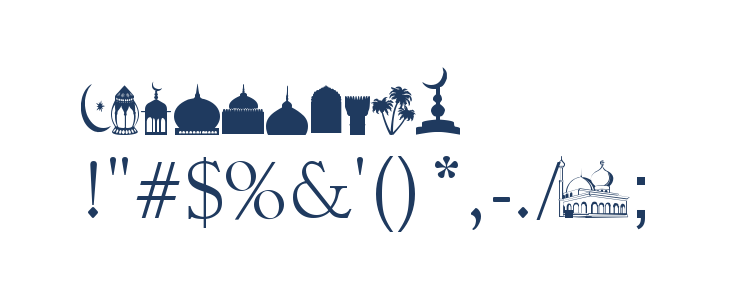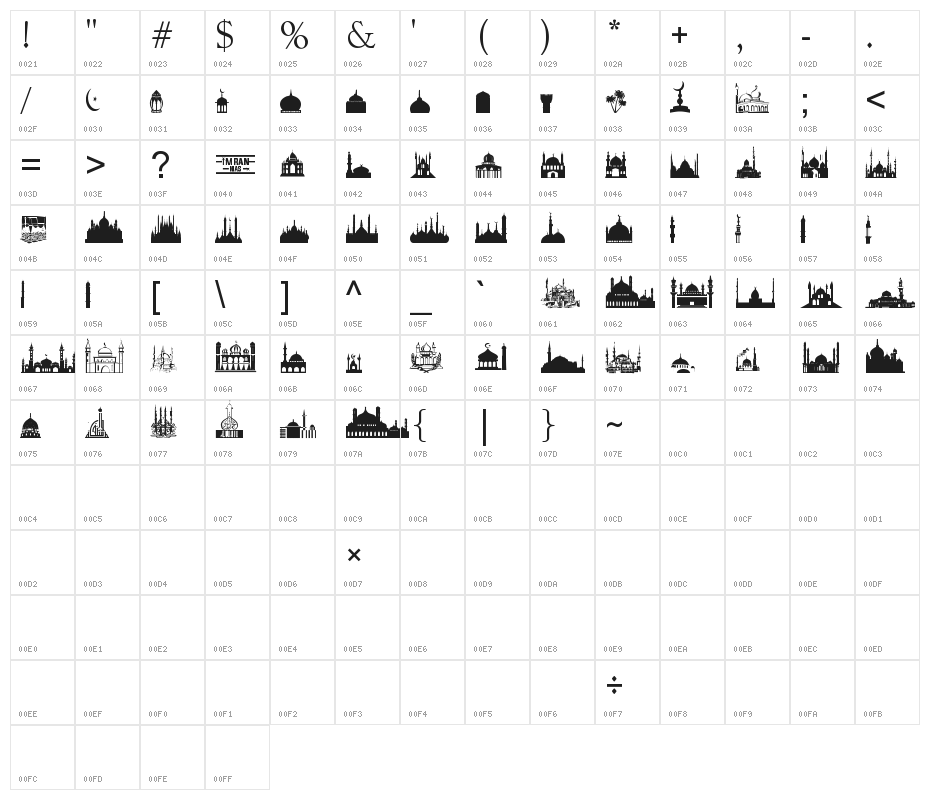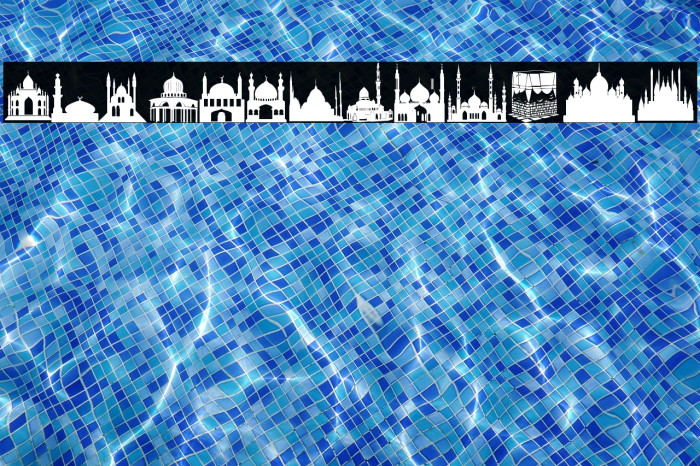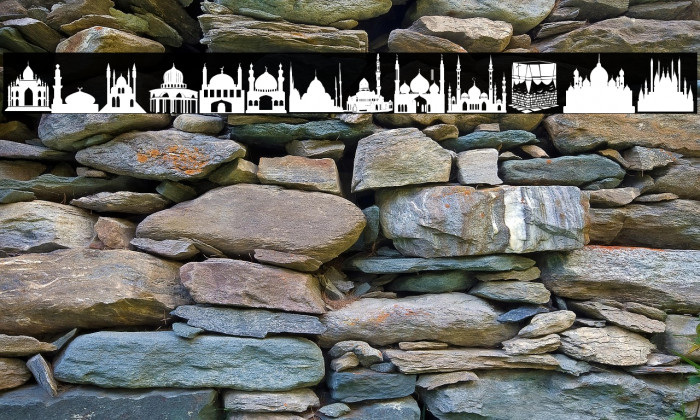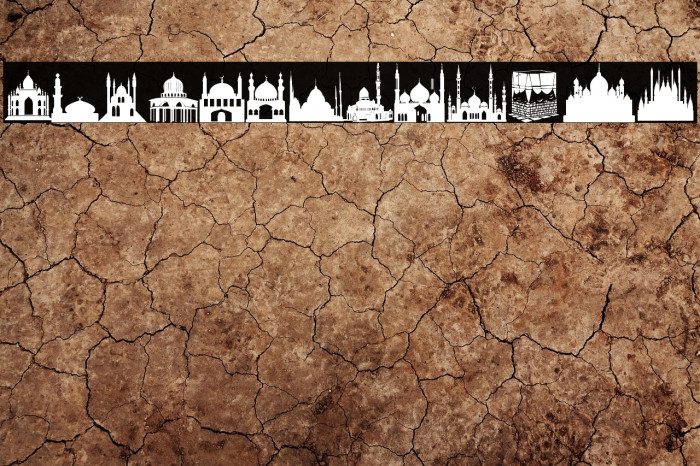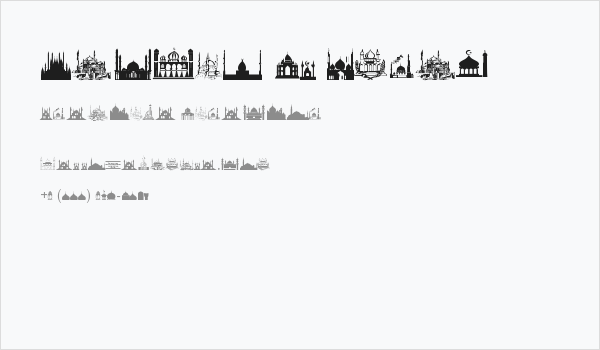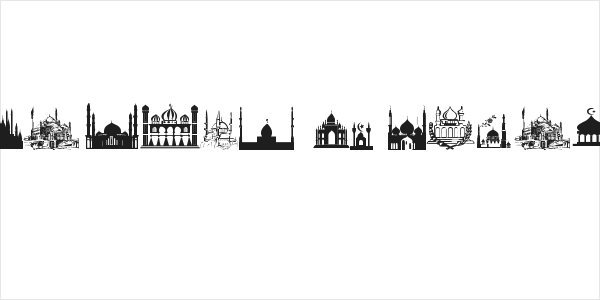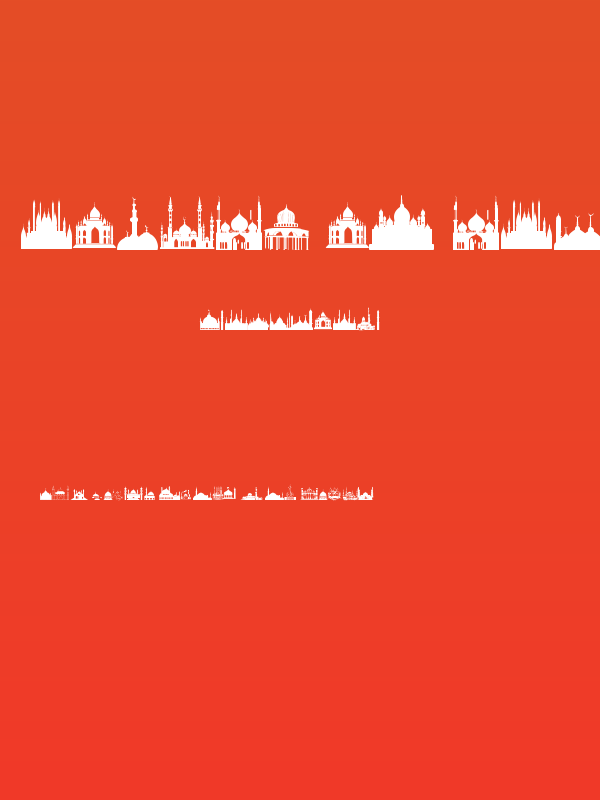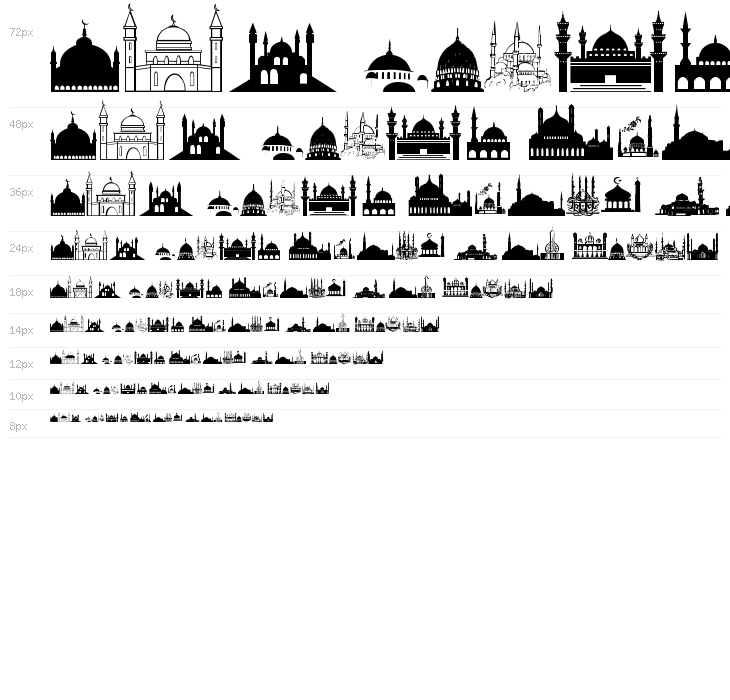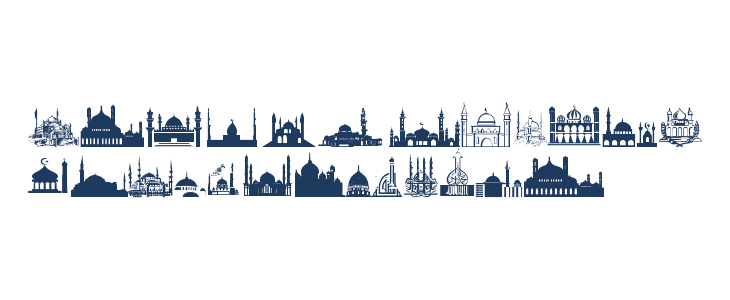
Masjid Al Imran Font
Masjid Al Imran Description
A decorative font featuring detailed silhouettes and outlines of various mosque architectures, Islamic landmarks, and related symbols, combined with standard punctuation and special characters in a classic serif style.
| Overall Style | Decorative, Thematic, Cultural |
| Use Case | Headlines, Logos, Posters, Invitations |
| Proposed Projects | Religious event invitations, Ramadan or Eid cards, Islamic educational materials, cultural posters, themed branding. |